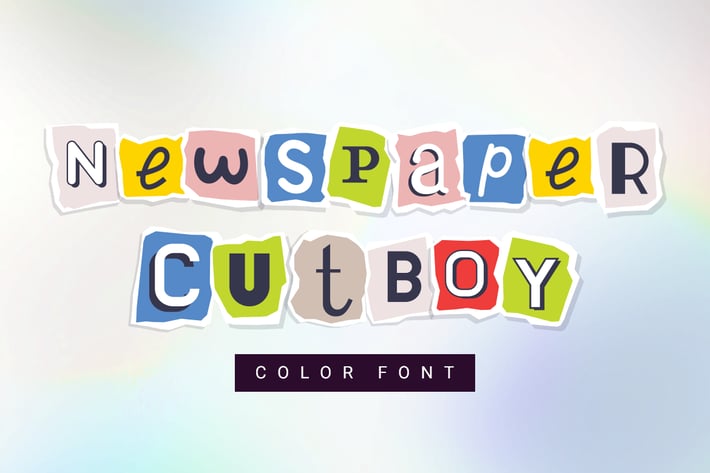
Newspaper cutboy| font
Newspaper cutboy is a color sans serif font designed in the style of newspaper cut letters. The font has four different alternates for each letter. The font has 26 letters with question and exclamation marks, it works great to make short titles. The font looks good on both dark and light backgrounds.
▪ 26 letters + four types of alternates for each letter
▪ question and exclamation marks